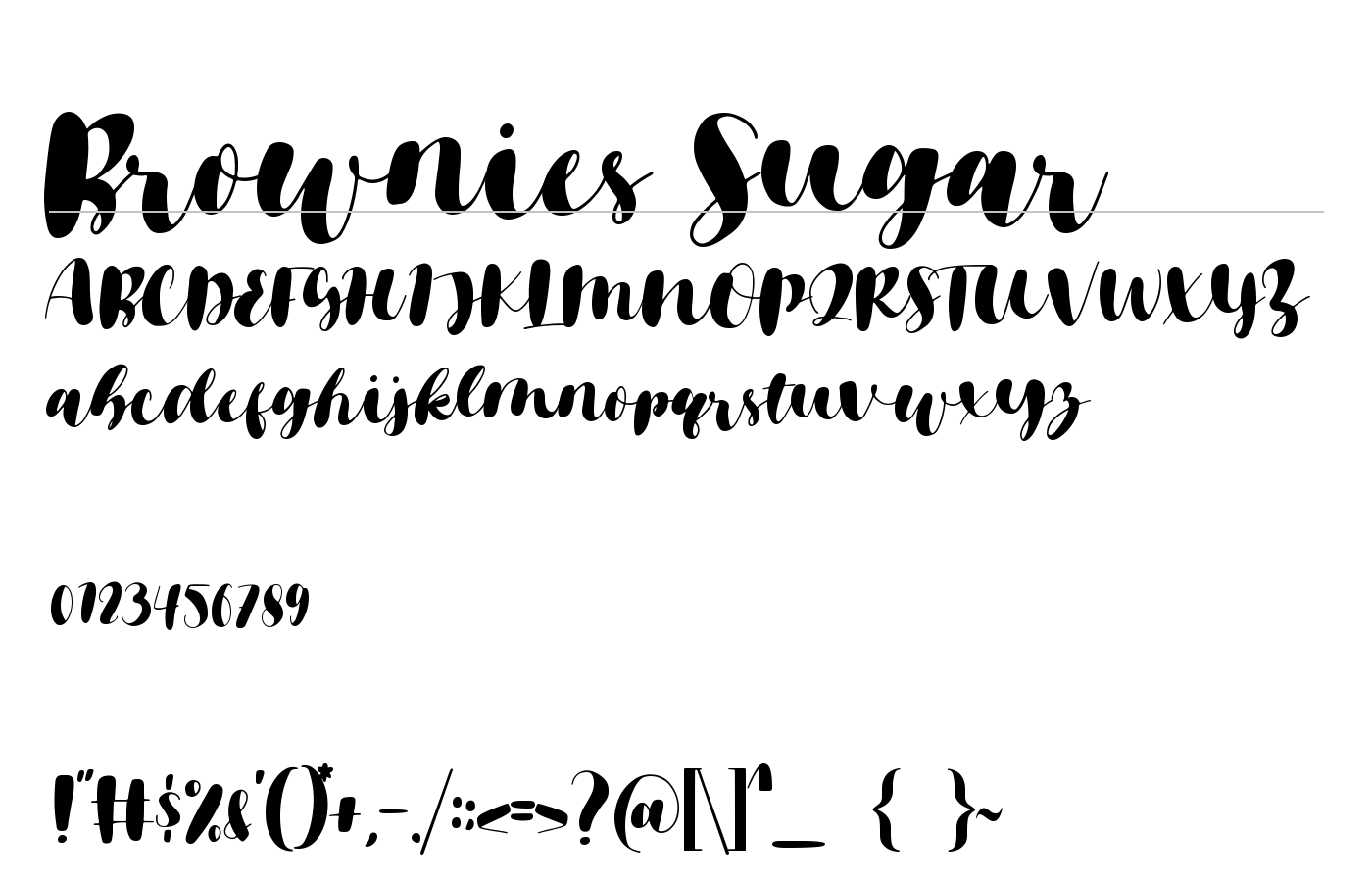
Brownies Sugar is a bold, playful script font with a hand-lettered feel, featuring thick and thin strokes that create high contrast and dynamic movement. Its rounded, flowing letterforms and tightly connected script make it perfect for inviting and charming designs, especially suited for branding, packaging, and headlines that need a friendly, creative touch. This font works beautifully for projects that aim to convey warmth and personality, such as food packaging, invitations, and stylish logos.
Brownies Sugar Font
About Brownies Sugar Font